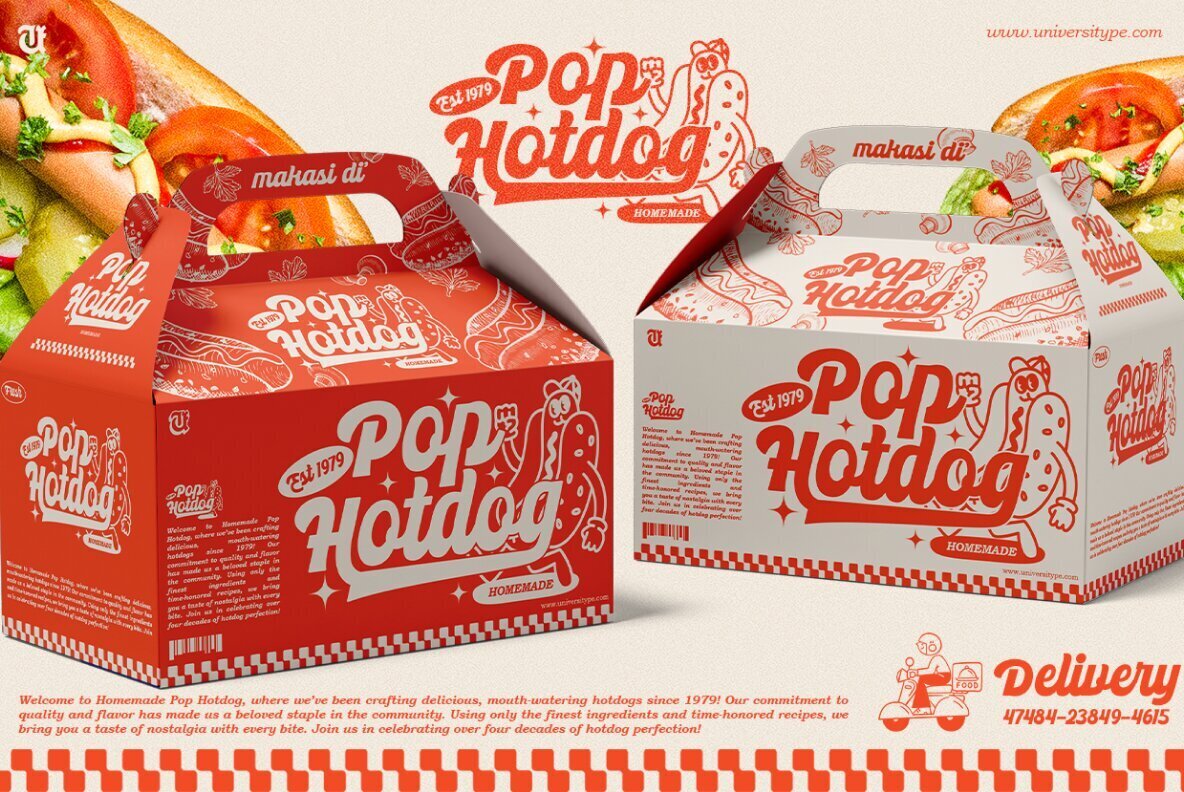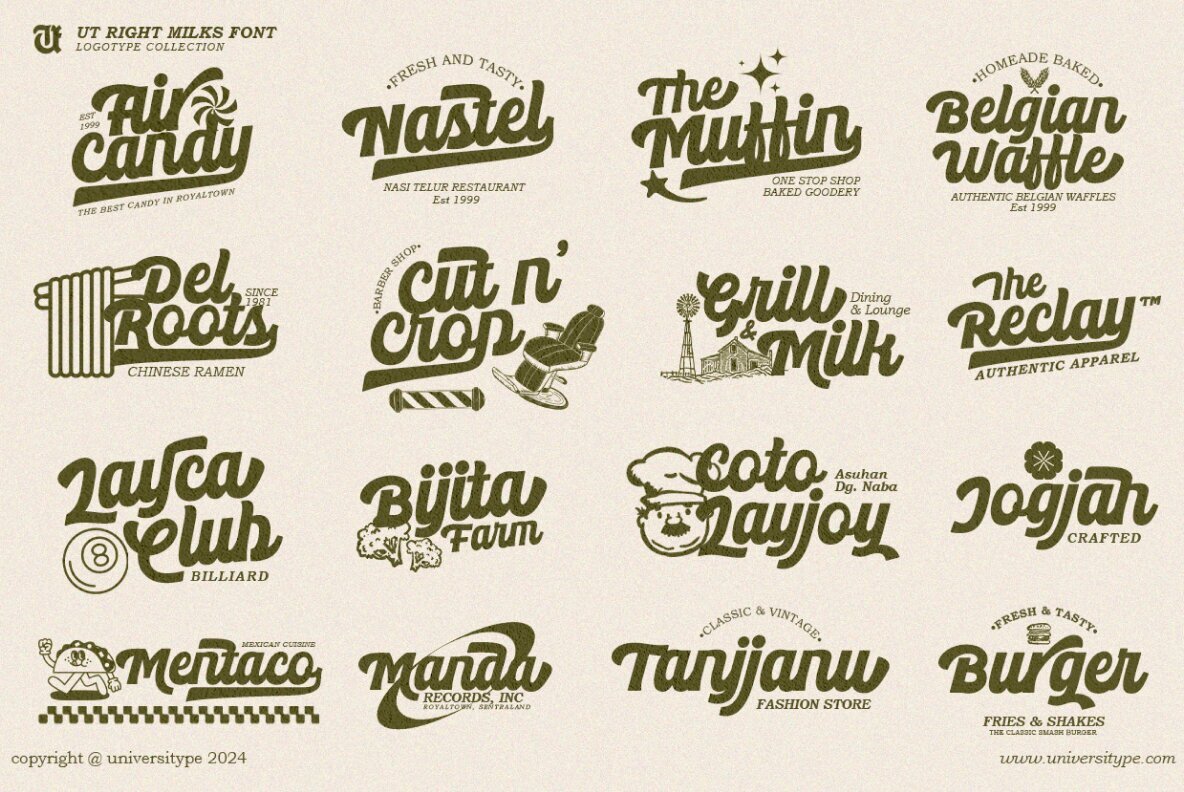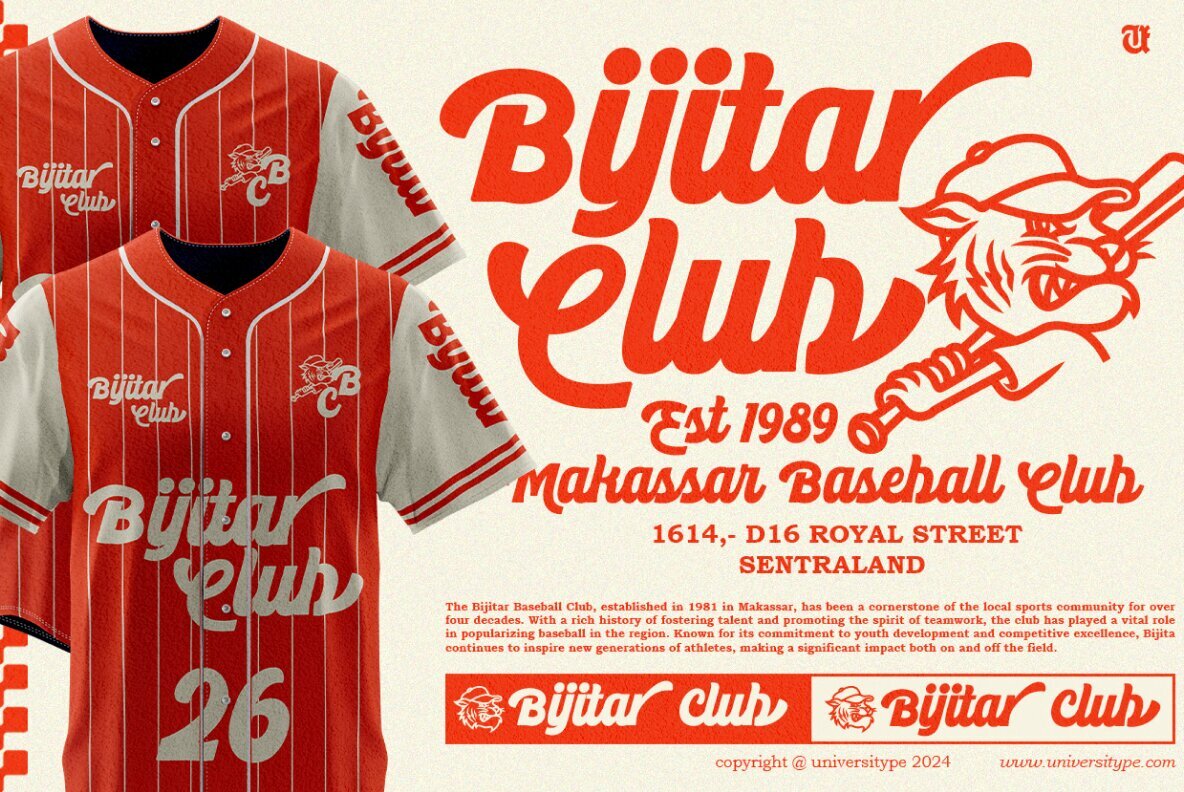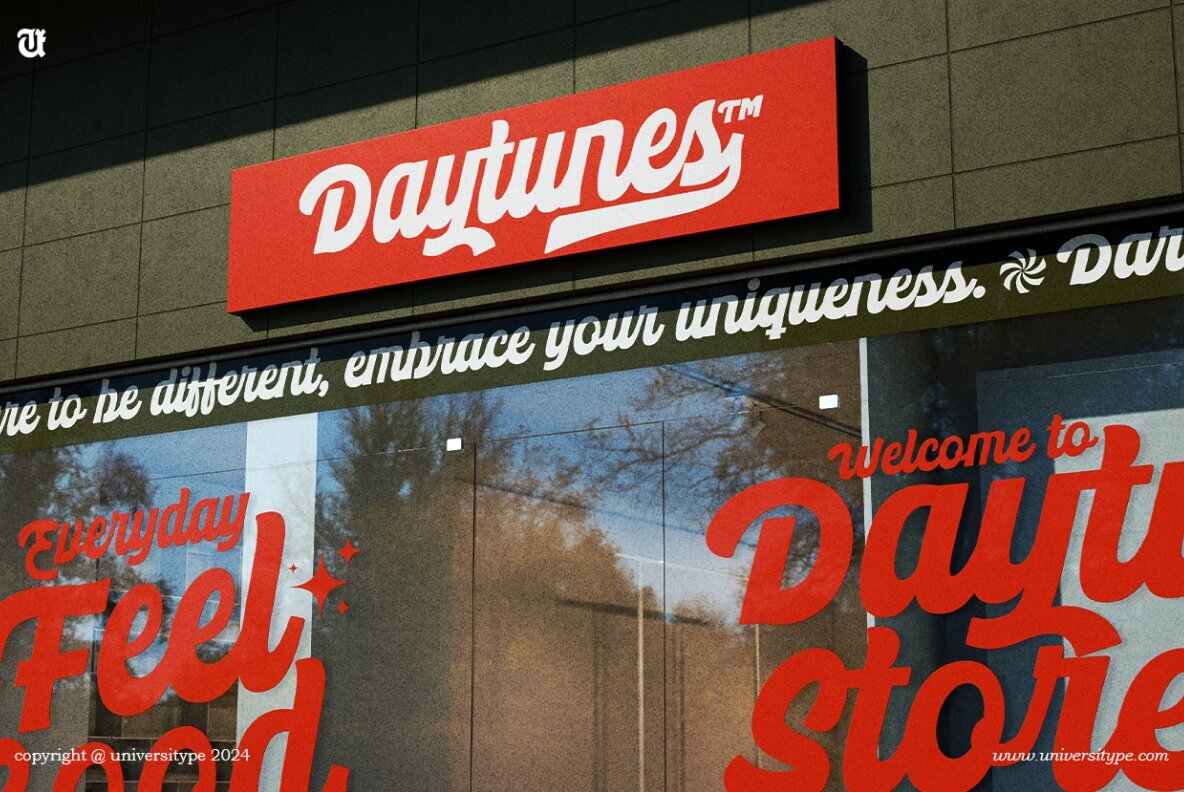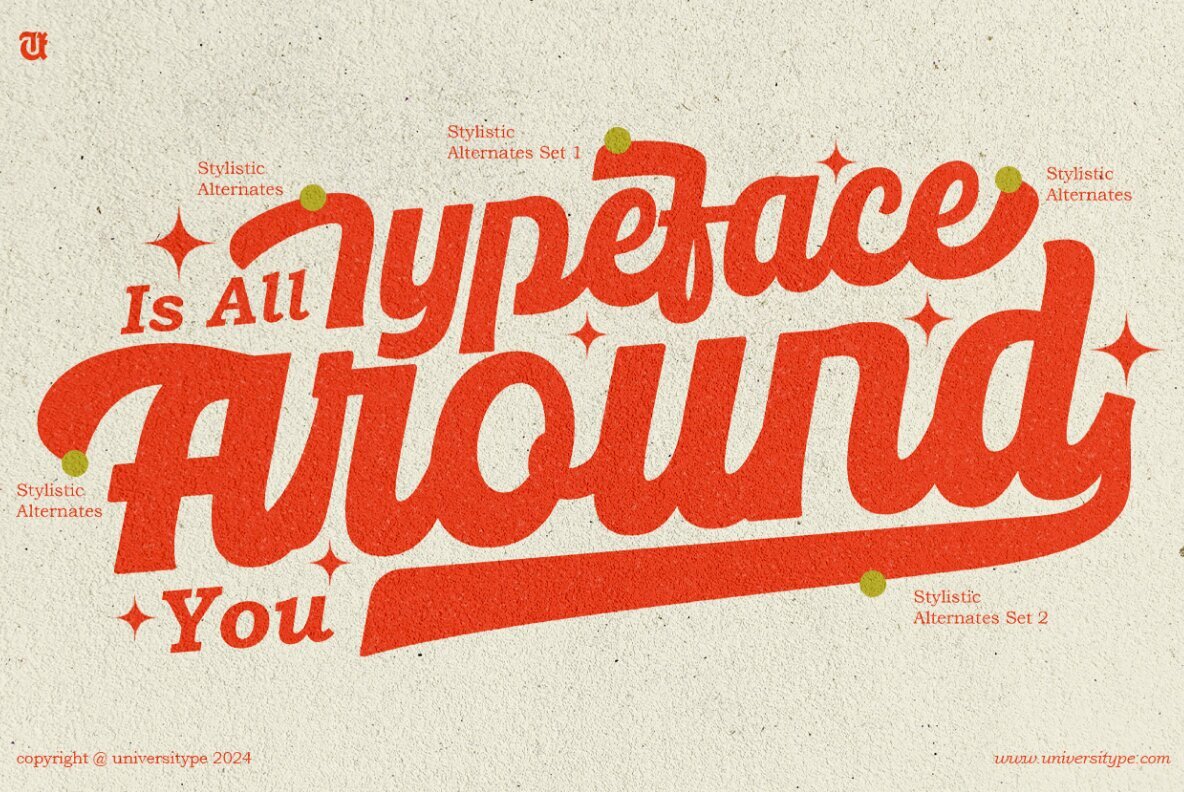
UT Right Milks is a bold script font designed to solve a problem for designers: finding a typeface that combines eye-catching boldness with flexibility for a range of creative projects. Traditional bold scripts often lack the versatility and legibility needed for diverse design applications, leaving designers with rigid options that fall flat in branding and digital materials. UT Right Milks addresses this issue by offering a smooth, flowing script with confident strokes, while providing extensive customization features like 524 glyphs, 3 stylistic sets, and ligatures. This font is the perfect solution for designers facing the problem of repetitive typography or limited creative control. Whether it's for branding, marketing campaigns, or web design, UT Right Milks makes sure your designs stand out while maintaining readability. Additionally, its support for over 200 languages ensures global reach, resolving the challenge of finding a bold script that works across different markets and audiences. Target Audience: Key Features: Inspiration Behind the Design: The UT Right Milks brand combines classic style with contemporary adaptability, drawing inspiration from brush lettering and strong sign painting. Projects that require an approachable yet strong vibe will benefit greatly from the rounded, hand-drawn look, which adds character and warmth. Usage Suggestions: